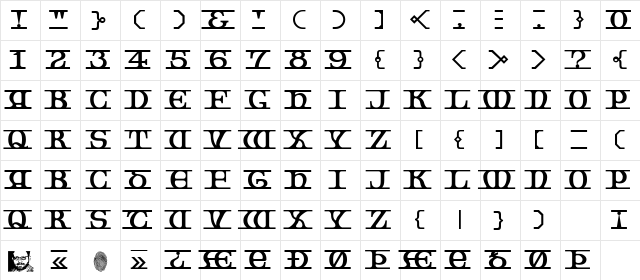
Trudeau Regular Font Preview
Trudeau Regular
| Copyright | TRUDEAU computer fonts v1.5 00 2004 Harold Lohner "  "http://www.haroldsfonts.com " Based on the lettering at Albany Law School, Albany, NY designed by architect Robert Louis Trudeau " Formerly called "Law Sc |
Design Context for Trudeau Typeface
Trudeau is a composed and adaptable typeface that performs quietly and consistently across a wide range of design contexts.